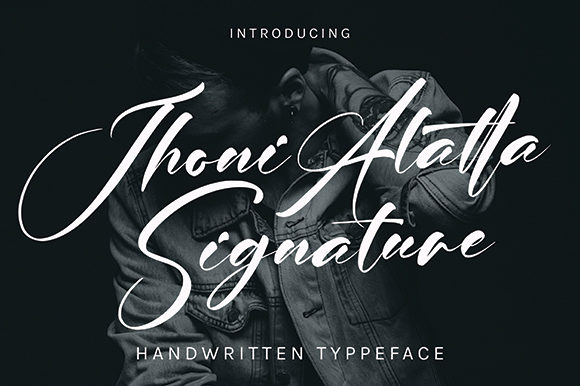
Choosing the Right Font for Your Website: Jhoni Alatta in Action
I was working on a new portfolio site for a graphic designer when I needed a font that could balance creativity with clarity. The client wanted something modern yet elegant—something that felt personal but still professional. That’s when I stumbled upon Jhoni Alatta. It wasn’t just another script font; it had a unique rhythm and a subtle elegance that made it stand out.
The First Impression: Testing Jhoni Alatta in a Hero Section
I started by placing Jhoni Alatta in the hero section of the site. The font immediately caught my eye. It has a fluid, almost handwritten feel, but it doesn’t come off as too casual. The curves are soft, and the letterforms have a natural flow that makes them easy to read at first glance. I tested it against some other script fonts I’d used before, and I noticed how Jhoni Alatta seemed to carry more weight without being overwhelming.
One of the things I appreciated was how well it worked over an image banner. The design had a clean background, and the font added just the right amount of visual interest without competing with the image. It’s a great example of how a well-chosen typeface can elevate the overall aesthetic of a page.
Readability and Layout Performance
As I continued to test Jhoni Alatta, I focused on its readability across different screen sizes. On mobile devices, I found that the font still held up well. Its open shapes and generous spacing helped maintain legibility even at smaller sizes. I also checked how it performed in various contexts—headers, buttons, call-to-action areas—and it consistently delivered a clear message without sacrificing style.
One thing I noticed was how Jhoni Alatta handled contrast. When placed over dark backgrounds, it maintained good visibility, but I also made sure to use light text on dark images to avoid any issues with readability. This attention to detail is crucial for ensuring that your audience can easily consume your content, no matter where they’re viewing it.
Using Jhoni Alatta in Different Design Contexts
Jhoni Alatta is incredibly versatile. I’ve used it in several different ways on the portfolio site. For the main headline, it added a touch of sophistication. In the call-to-action area, it created a sense of urgency without feeling too aggressive. Even in the navigation menu, it brought a level of personality that made the site feel more engaging.
Another place where Jhoni Alatta shone was in the blog section. I paired it with a simple sans-serif font for the body copy, which created a nice contrast. The script font added a creative flair, while the sans-serif kept everything grounded and readable. This kind of font pairing is a common strategy in web design, and Jhoni Alatta works beautifully with both serif and sans-serif fonts.
Font Pairing and Brand Identity
When selecting a font like Jhoni Alatta, it’s important to consider how it aligns with your brand identity. For a creative portfolio or boutique online store, a script font like this can add a personal touch. However, it’s also essential to pair it with complementary fonts to ensure that the overall design remains balanced.
I often recommend using a display font like Jhoni Alatta for headlines and key messages, while keeping body text in a simpler, more readable font. This approach not only enhances visual hierarchy but also improves user experience by making information easier to digest.
Technical Considerations
Before implementing Jhoni Alatta on the site, I made sure to check its technical specifications. The font includes multiple weights and alternates, which gives designers more flexibility in their layouts. It also supports multilingual characters, which is a plus for international projects.
Since Jhoni Alatta is part of the Script Amp collection, I knew it would be available as a webfont, which is essential for responsive designs. I also verified that the font files were optimized for fast loading, which is critical for maintaining good performance on websites.
Final Thoughts on Jhoni Alatta
Overall, Jhoni Alatta has been a great addition to the project. It brings a unique personality to the design without compromising readability or usability. Whether you’re building a portfolio site, a course sales page, or a branding campaign, this font offers a versatile solution that can adapt to your needs.
Its ability to work across different layouts and screen sizes makes it a valuable tool for any digital creator. If you’re looking for a script font that balances style with functionality, Jhoni Alatta is definitely worth considering. It’s a great example of how the right typeface can make a real difference in the user experience and the overall success of a website.